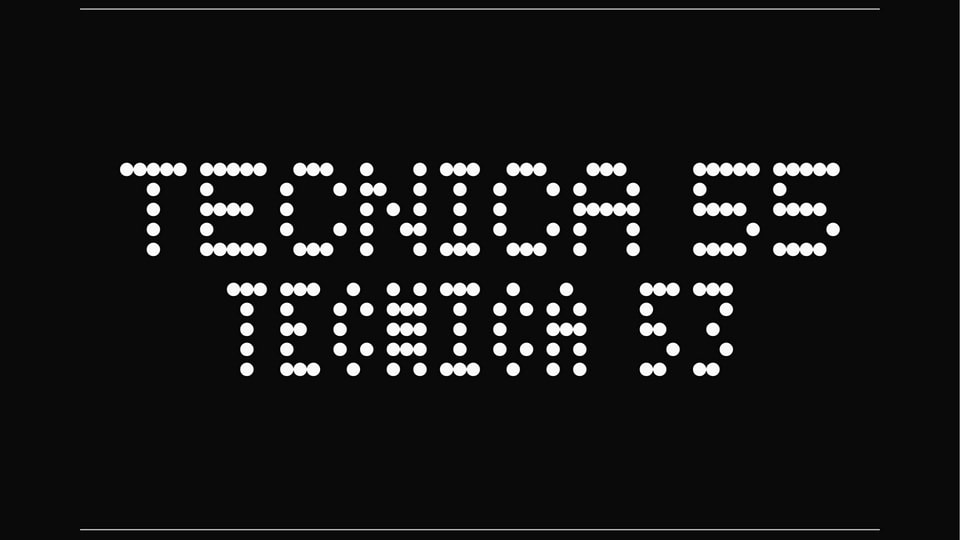
Download Tecnica 55 and Tecnica 53 fonts, the typographic designs deeply rooted in the aesthetics of dot matrix printing, a technology once pivotal in early printers and digital displays.
Designer: Davide Piscitelli